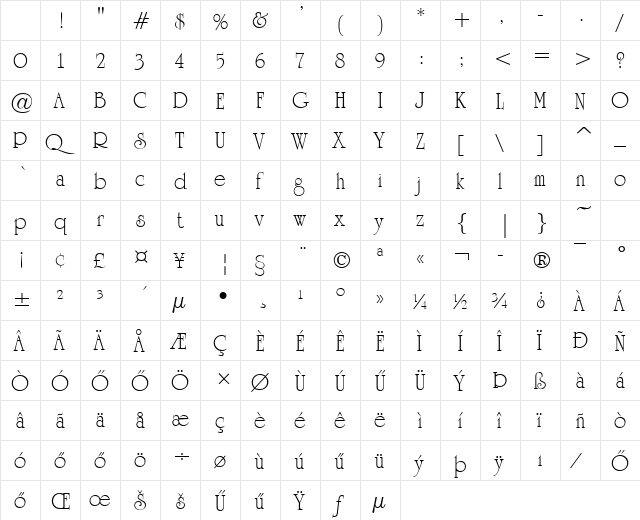
Complete Huni_University Ornate Regular glyph index. Displaying only characters natively supported by Huni_University Ornate Regular font.
Huni_University Ornate is a composed and adaptable typeface that performs quietly and consistently across a wide range of design contexts.